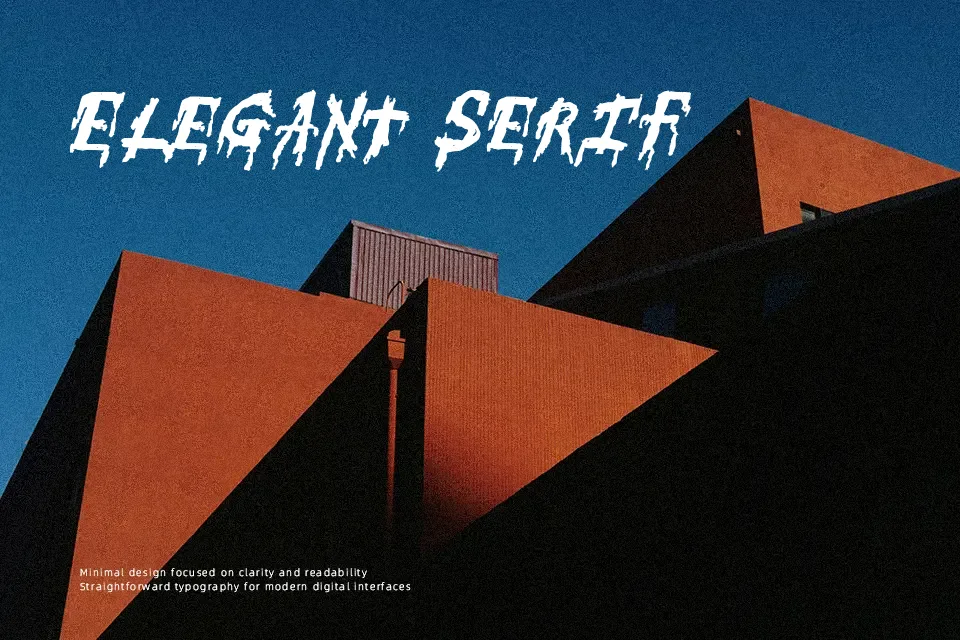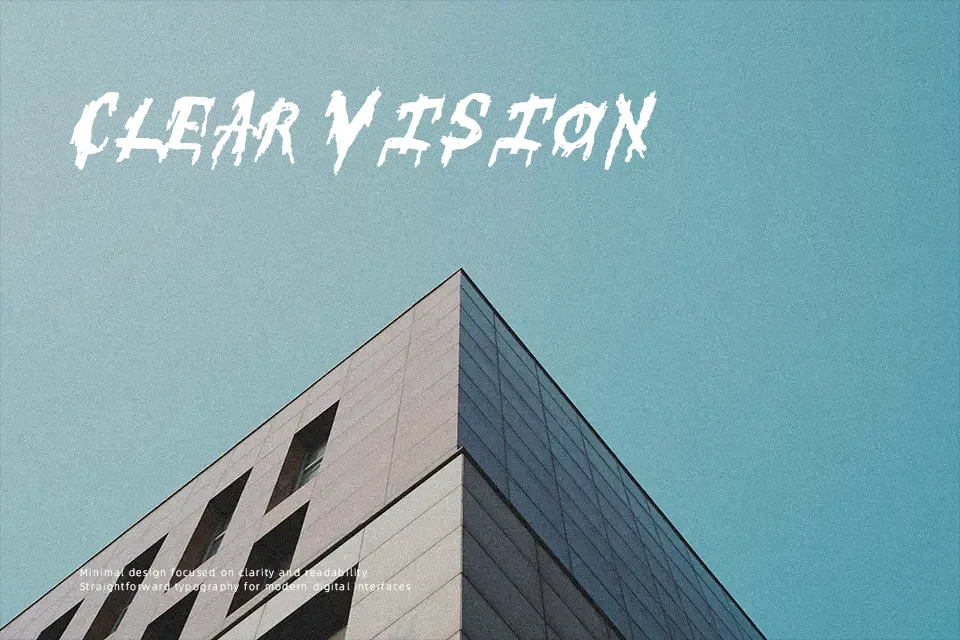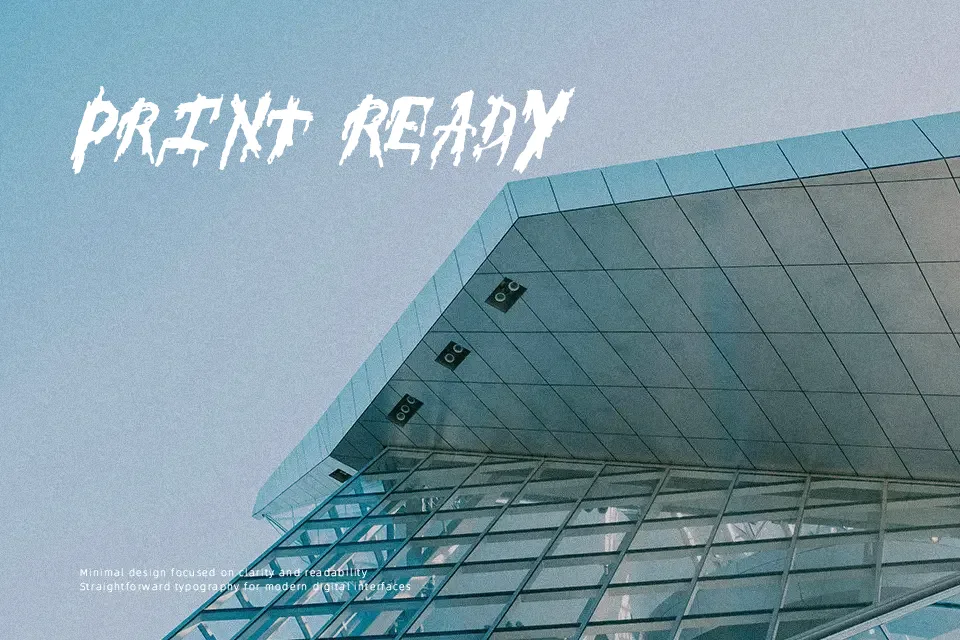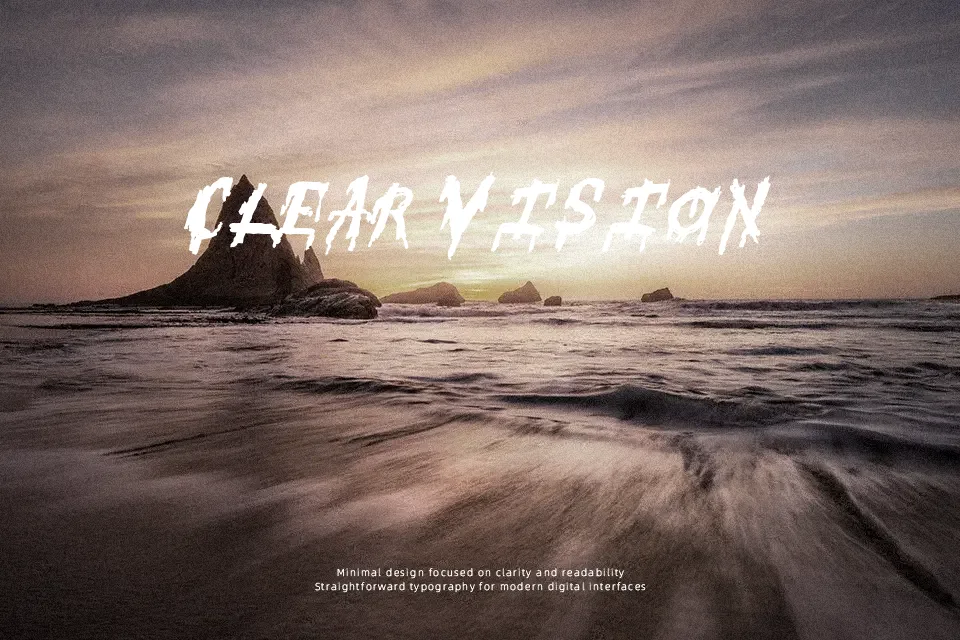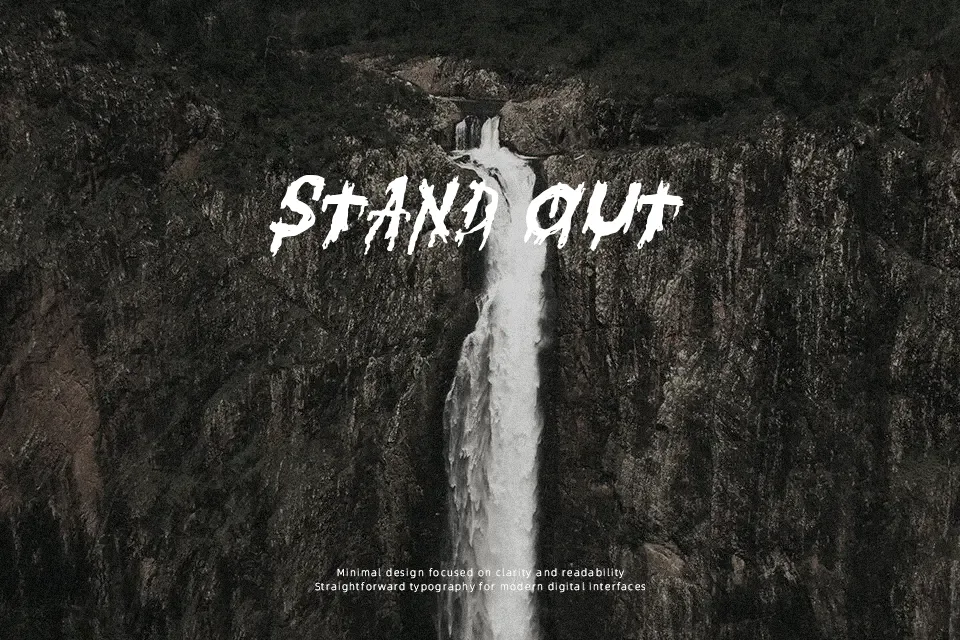
Super Fear Font
Super Fear Font uses irregular, jagged display letterforms with rough edges and a deliberately unsettled rhythm. Its strokes appear uneven rather than mechanically uniform, while the proportions and spacing give short words a tense, fragmented presence. The design reads most clearly in large uppercase-led headlines, poster titles, and themed graphics where the silhouette of each word can carry the message. Decorative distortion makes the typeface less comfortable in compact sizes or continuous copy. In practice, it works best when kept to a few prominent words with sufficient surrounding space.
Best For: Halloween posters,haunted house signage,horror film titles,dark social media graphics
Perfect for film, halloween, and headline, with a dark and decorative style.